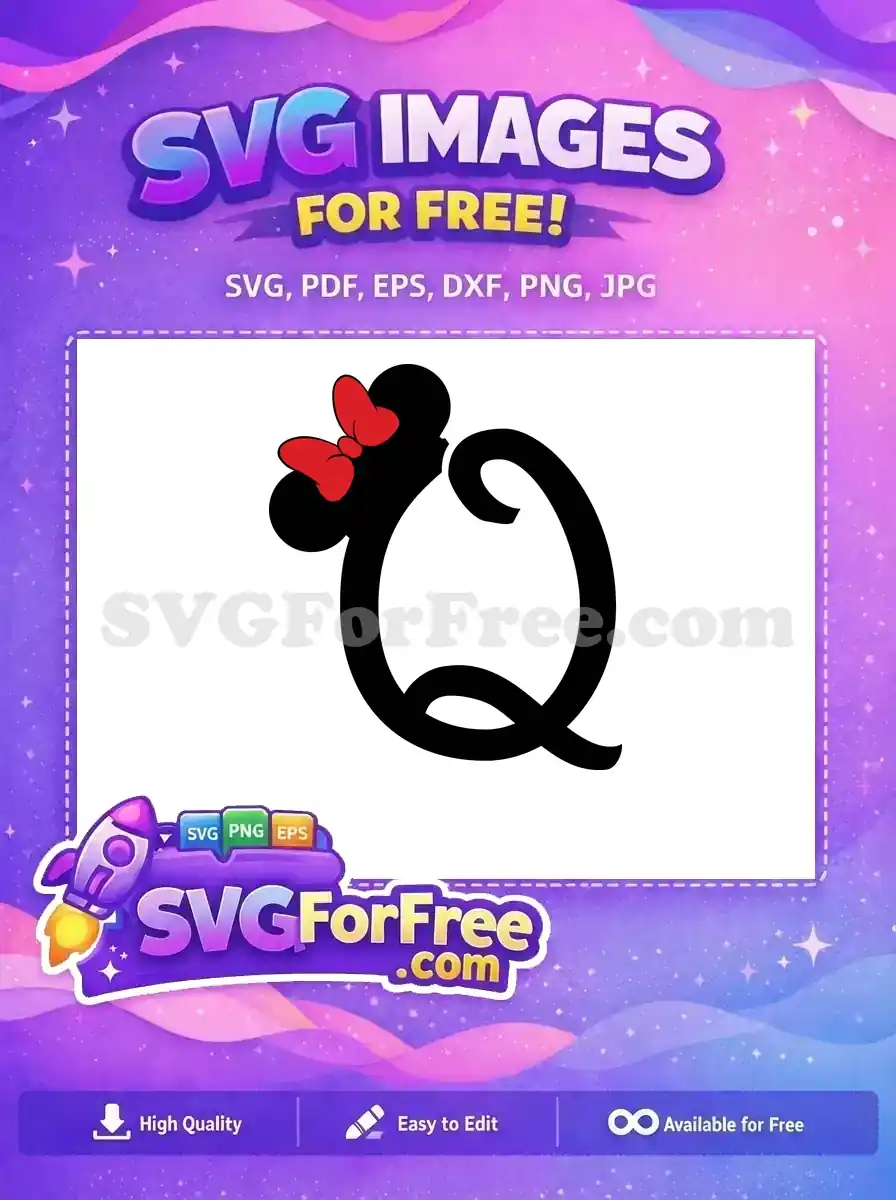
Free Minnie Mouse Font Letter Q Free Classic Red Bow Design Minnie Mouse Alphabet Free SVG – Instant Download
Letter ‘Q’ embellished with a red Minnie-style bow, free vector art.
Free Minnie Mouse Font Letter Q Free Classic Red Bow Design Minnie Mouse Alphabet Free SVG